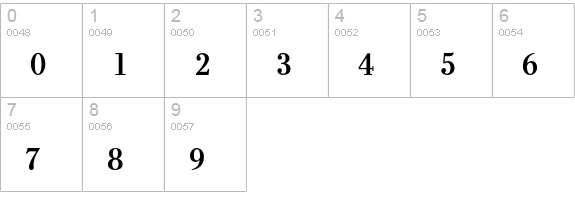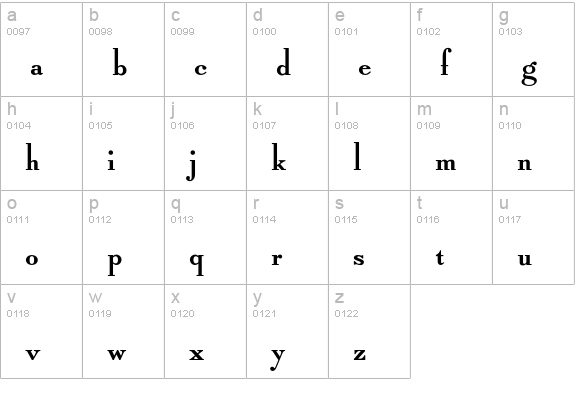
OPTITypoRoman Font Details
Introducing OPTITypoRoman font, a versatile and elegant typeface designed to elevate your design projects to new heights. This font combines classic Roman letterforms with a modern twist, making it perfect for a wide range of applications, from branding to editorial design. With its clean lines and balanced proportions, OPTITypoRoman exudes sophistication and professionalism, making it an ideal choice for both digital and print projects. And the best part? OPTITypoRoman is available for free download at FontsMarket.com, allowing you to access this high-quality font without breaking the bank. Whether you're working on a personal project or a client commission, OPTITypoRoman is sure to impress with its timeless appeal and effortless readability. Don't miss out on this opportunity to enhance your designs with the exquisite OPTITypoRoman font – download it today and take your typography game to the next level.